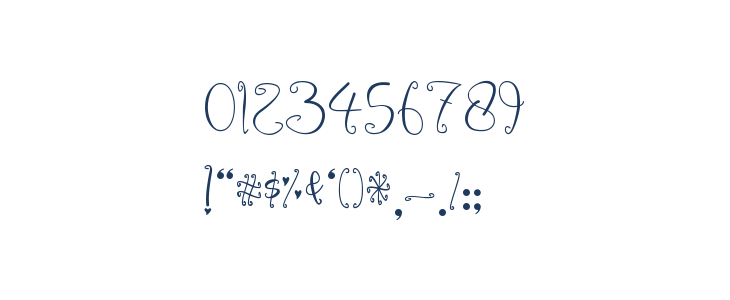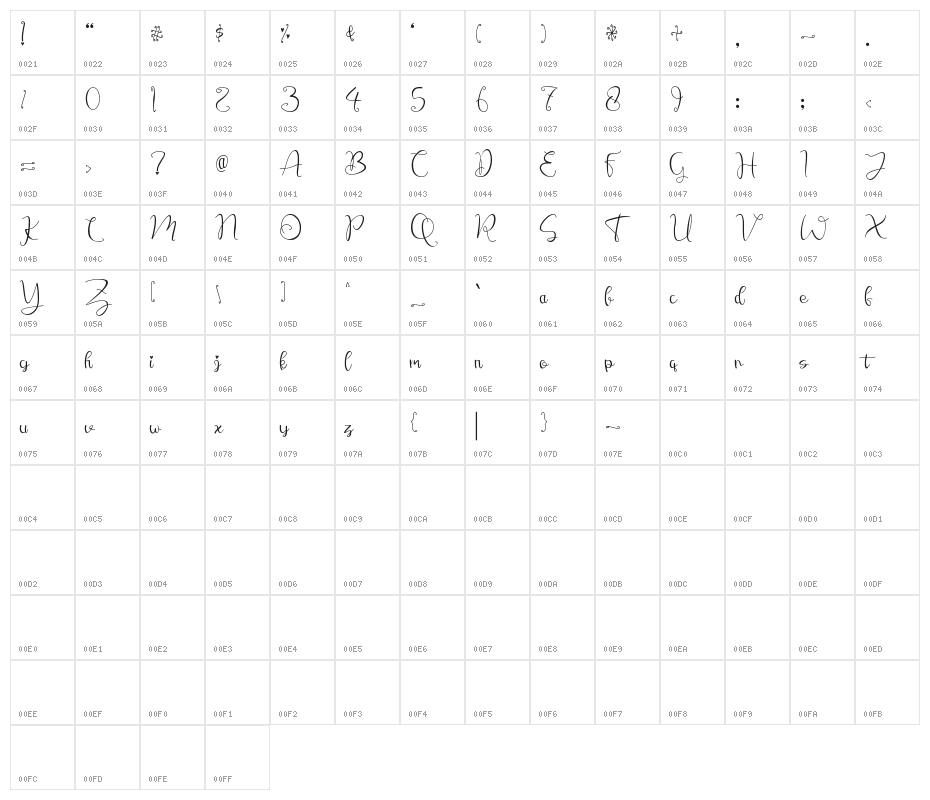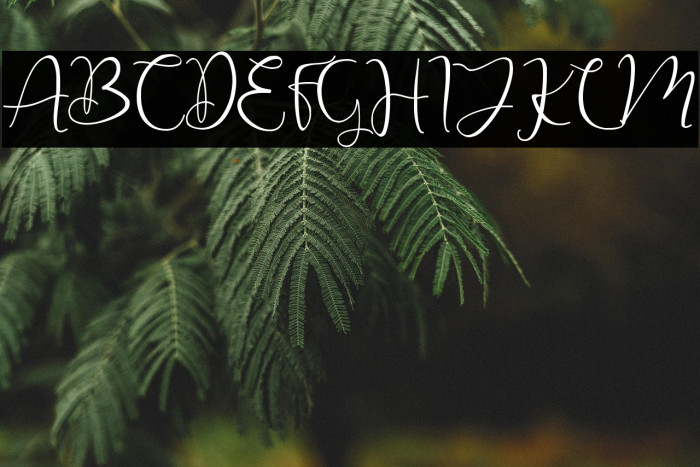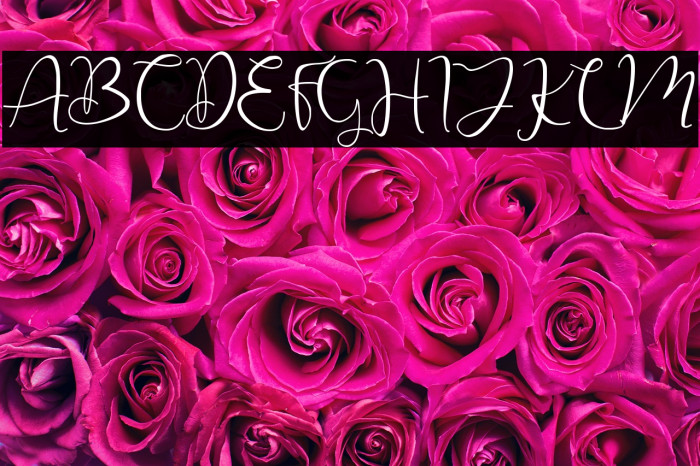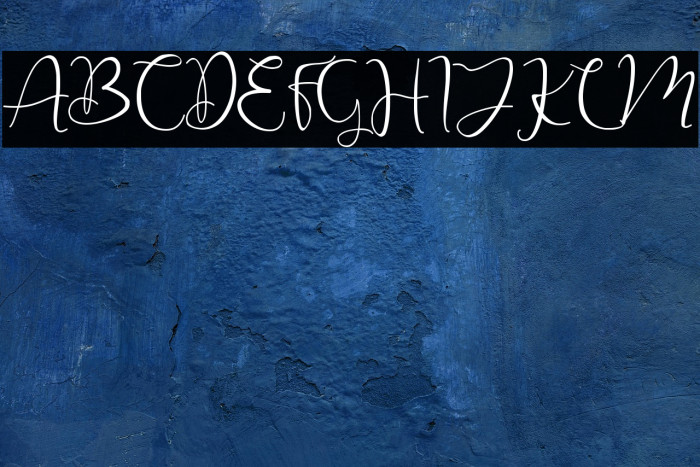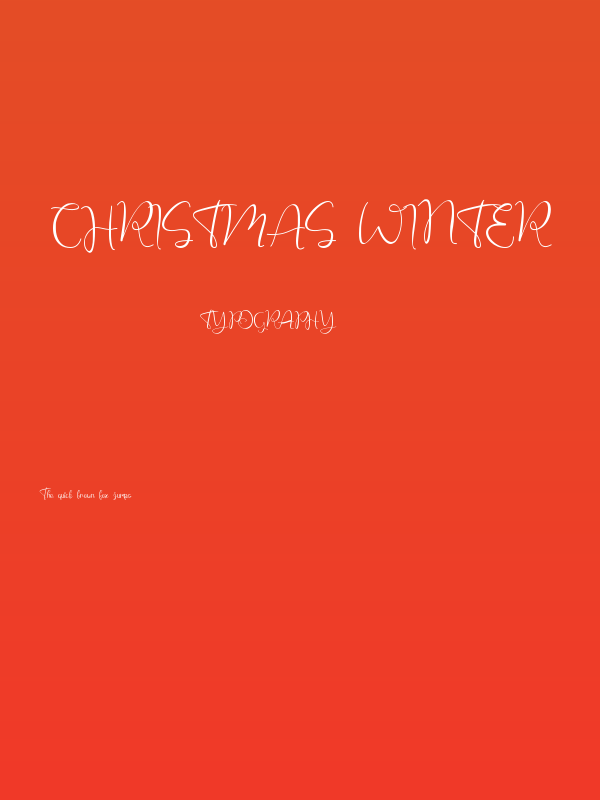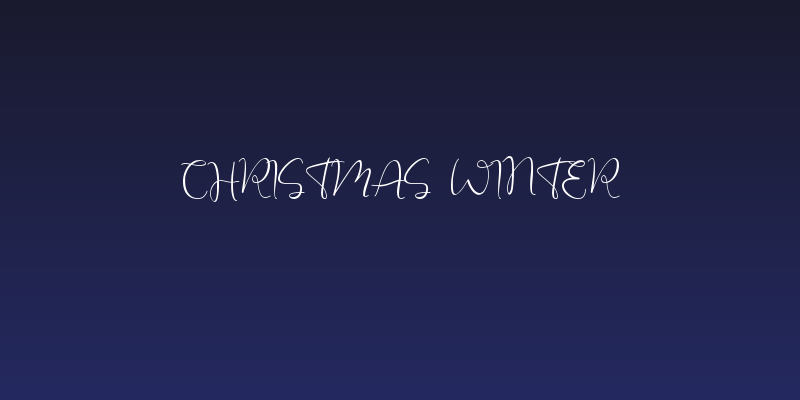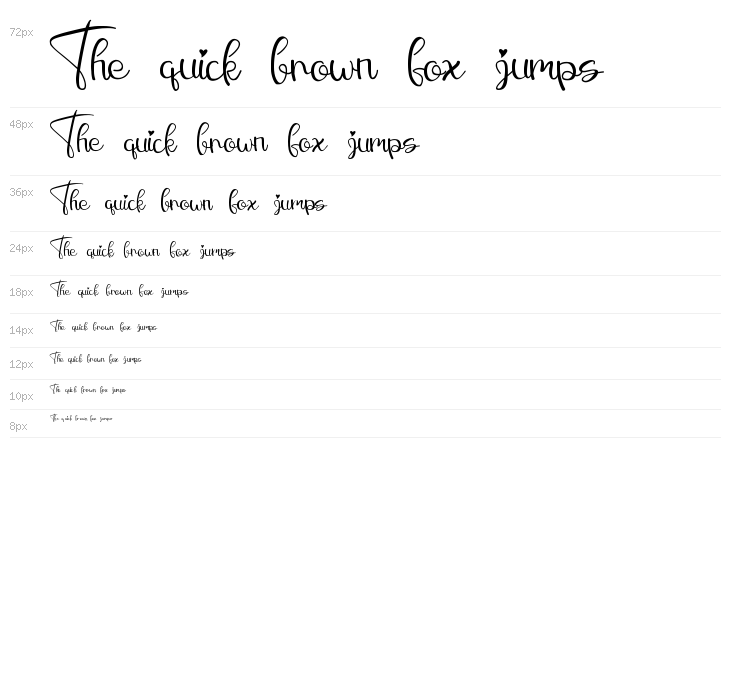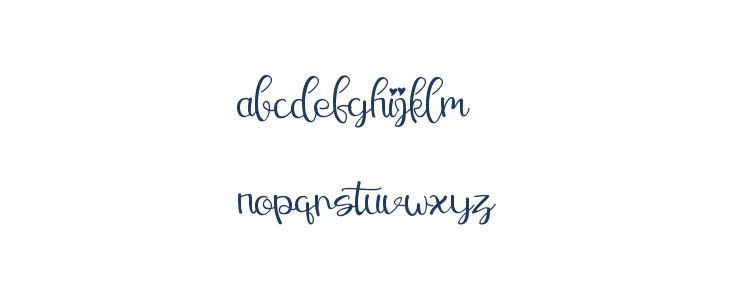
Christmas Winter Font
Christmas Winter Description
This font features a whimsical and playful script style, characterized by its flowing, interconnected letters and decorative flourishes. The uppercase letters are tall and elegant, with unique loops and swirls that add a touch of sophistication. The lowercase letters maintain a consistent style, with some characters featuring charming embellishments like hearts and stars. The numbers are curvy and complement the overall aesthetic, while the special characters include ornate designs that enhance the font's festive and joyful appearance. This font is perfect for adding a personal and artistic touch to any project.
| Proposed Projects | Ideal for holiday cards, invitations, festive banners, and playful branding. |